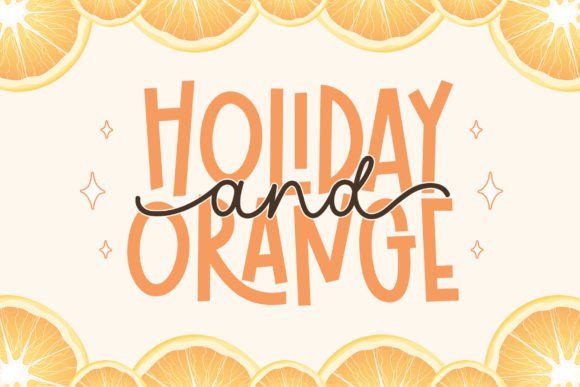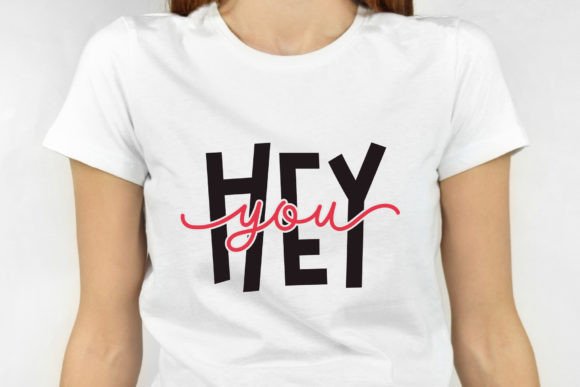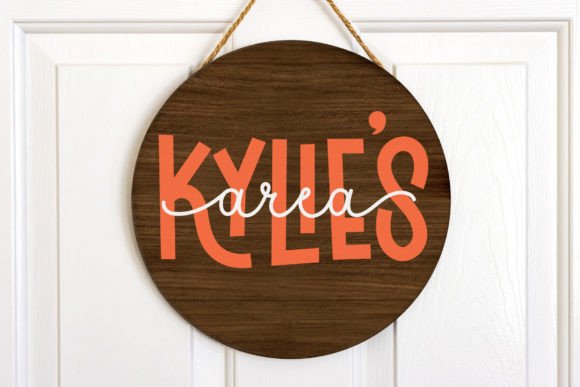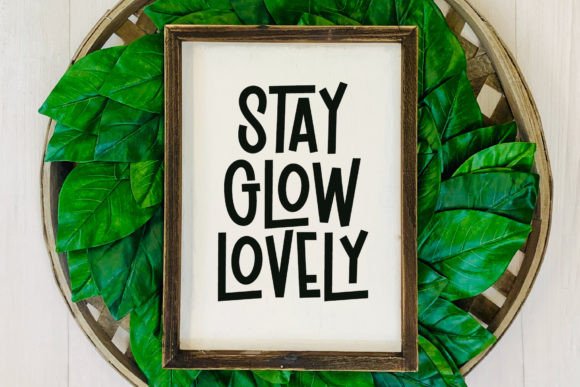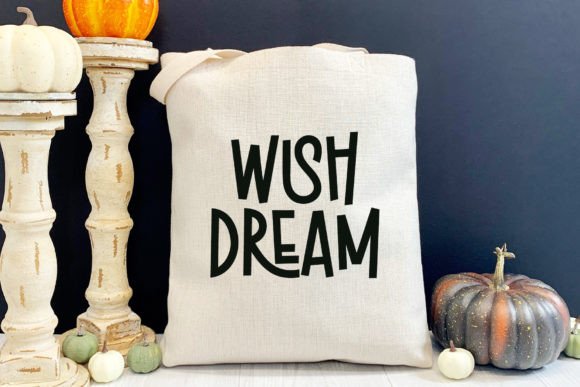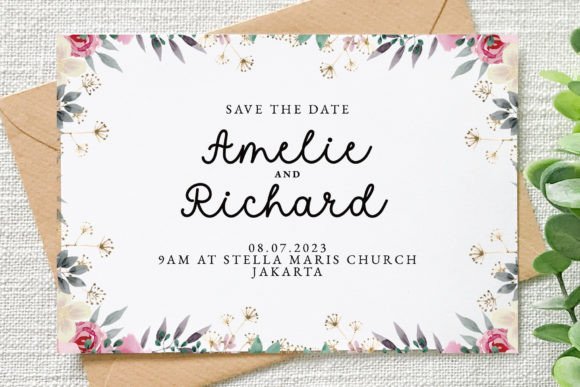
Introduction to Pretty Summer Font
Remember the thrill of creating a new design project, surrounded by endless possibilities and a blank canvas waiting to be filled with your imagination? For designers, there’s no greater joy than bringing a creative idea to life, and with the right tools, the process becomes even more magical.
That’s where the Pretty Summer Font comes in – a delightful, playful font duo designed to add a touch of whimsy to any project. Whether you’re working on a wedding invitation, a birthday party design, or a fun t-shirt idea, this charming font is sure to elevate your design and leave a lasting impression on your audience.
With its PUA encoded glyphs and ligatures, the Pretty Summer Font is a valuable resource for designers, offering a seamless and effortless design experience. In this article, we’ll delve into the world of this adorable font duo and explore its many uses, from crafting and sublimation to sticker design and more.
Key Features of Pretty Summer Font
- Unique, hand-drawn style with a touch of whimsy and playfulness
- Perfect for summer-themed designs, invitations, and other creative projects requiring a light, airy feel
Honest Review: Pretty Summer Font
As a designer, I’m always on the lookout for high-quality design resources to elevate my creative projects. The Pretty Summer Font caught my eye with its playful and whimsical feel, perfect for summer-themed designs.
- ✨ High-quality design with crisp lines and smooth curves.
- ✨ Suitable for a wide range of creative projects, from social media graphics to website headers.
- ⚠️ Limited character set, which may not be suitable for longer text-based designs.
- ⚠️ May not be as versatile as other fonts, depending on the design style.
Overall, I’m impressed with the Pretty Summer Font’s design and quality. While it may have some limitations, it’s a great option for designers looking for a fun and playful font for their summer-themed projects. With a little creativity, you can make the most of this design resource and create some amazing designs.
The Pretty Summer Font is ideal for a variety of creative projects, including wedding invitations, birthday cards, and social media graphics. Its elegant and sophisticated design makes it perfect for any occasion that requires a touch of class and sophistication.